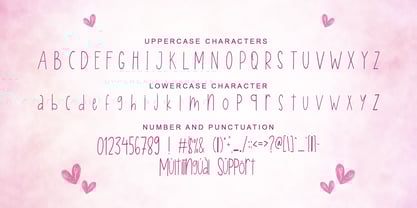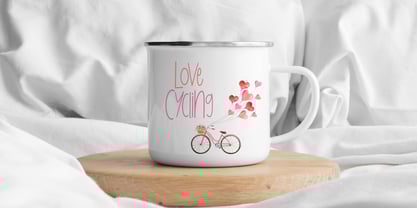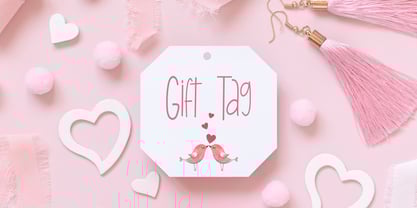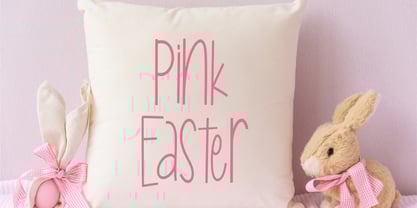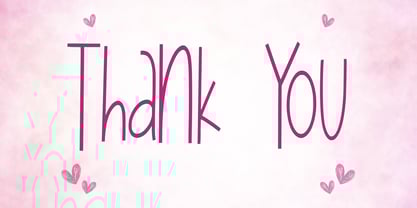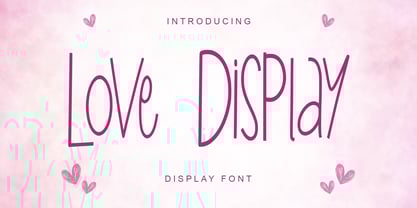
Love Display
The Love Display Font Family was designed by Alif Ryan Zulfikar and published by Sakha Design. Love Display contains 2 styles and family package options.
Love Display is a charming display font with elegant curves and bold characters. Perfect for invitations, posters, and branding, its romantic and stylish design adds a captivating touch to creative projects, enhancing visual appeal effortlessly.